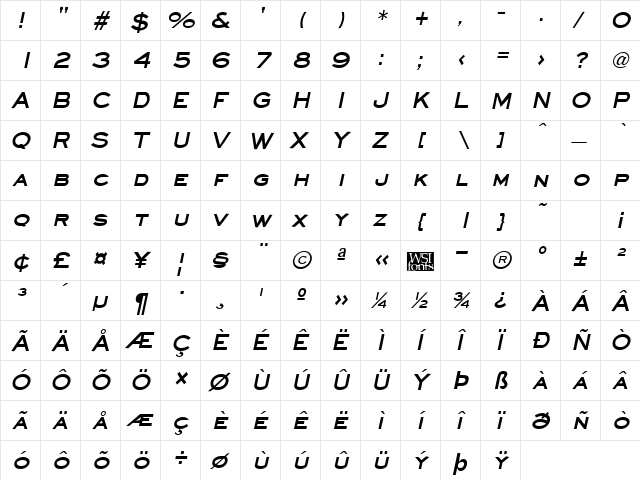
Eyechart Bold Italic
Design Context for Eyechart Typeface
Eyechart is a composed and adaptable typeface that performs quietly and consistently across a wide range of design contexts. The slanted form adds forward momentum and visual energy. The heavy weight commands attention and anchors typographic hierarchies.